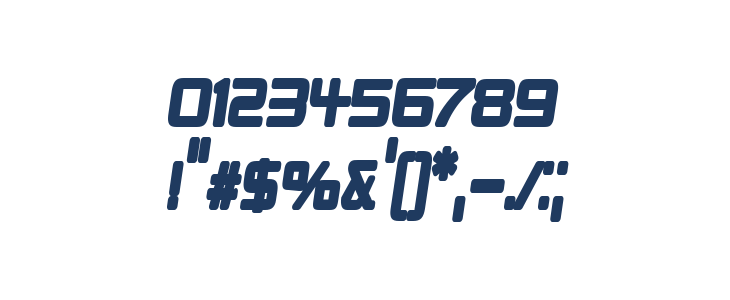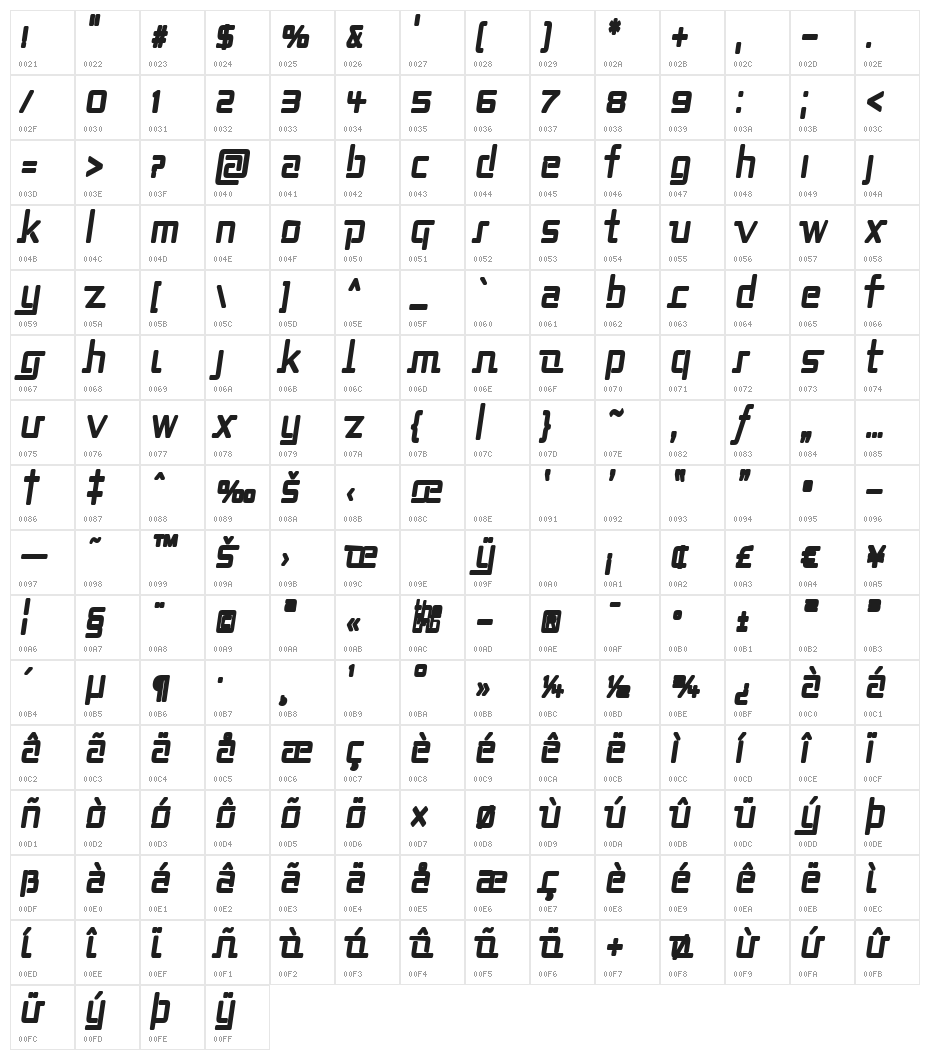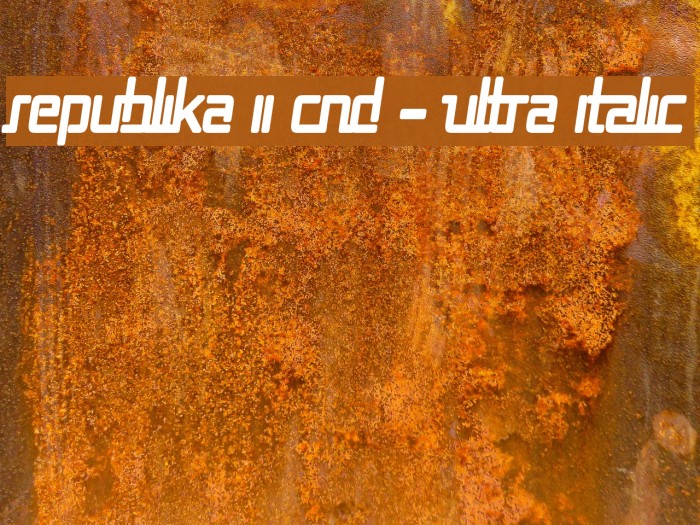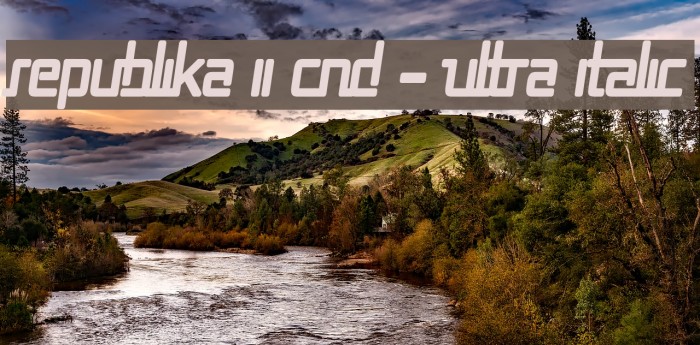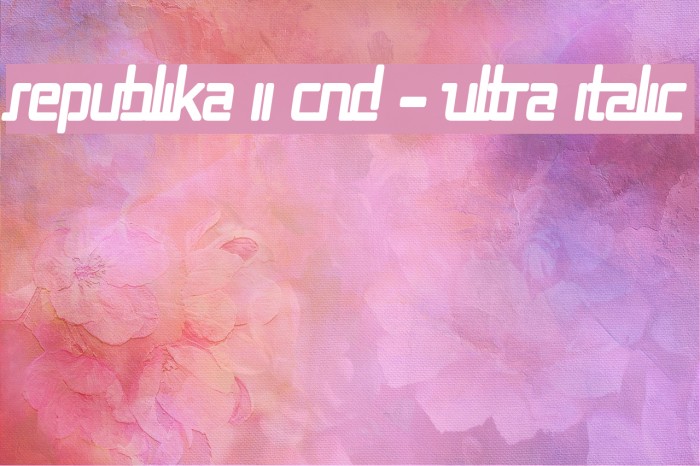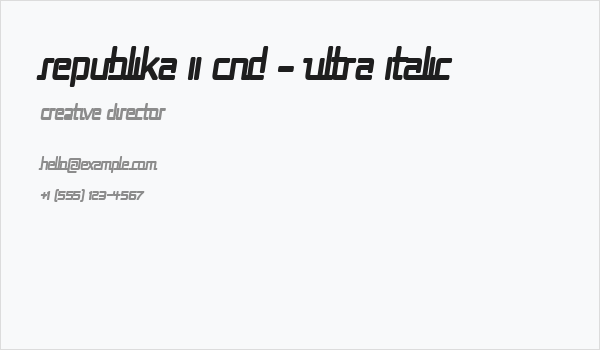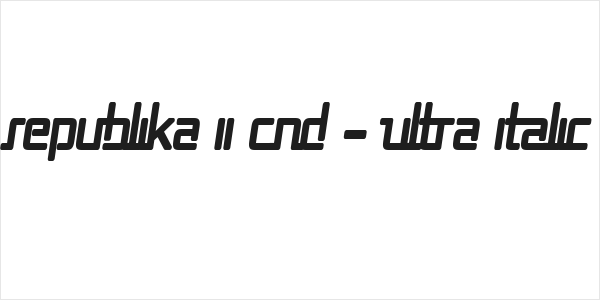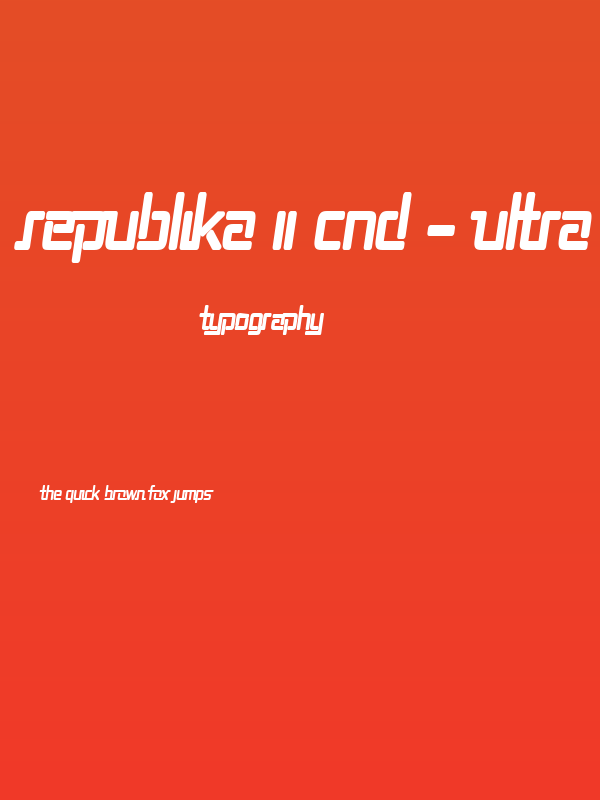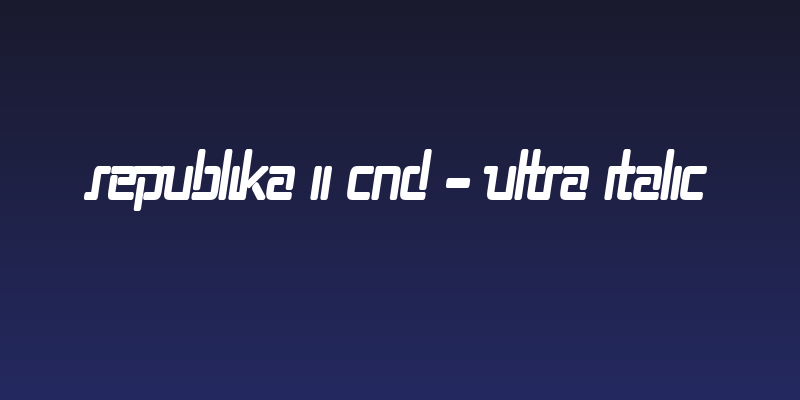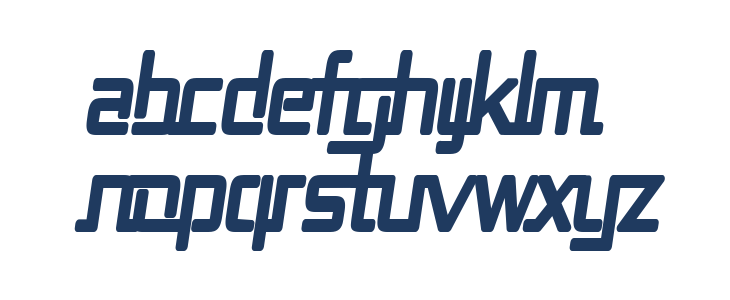
Republika II Cnd - Ultra Italic Font
Republika II Cnd - Ultra Italic Description
This font features a bold and ultra-italicized style with a condensed width, giving it a dynamic and modern appearance. The characters are tightly spaced, enhancing its compact and sleek look. The strokes are thick and consistent, providing a high contrast that makes the font stand out. Its geometric and angular design elements contribute to a futuristic and edgy feel, making it suitable for attention-grabbing headlines and impactful designs. The uppercase and lowercase letters maintain a uniform style, while the numerals and special characters complement the overall aesthetic.
| Proposed Projects | Ideal for futuristic branding, sports team logos, tech-related projects, and dynamic poster designs. |